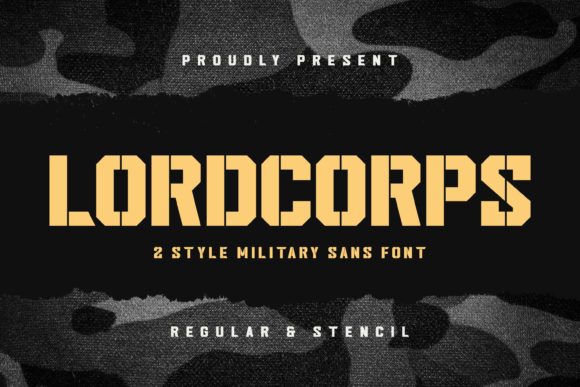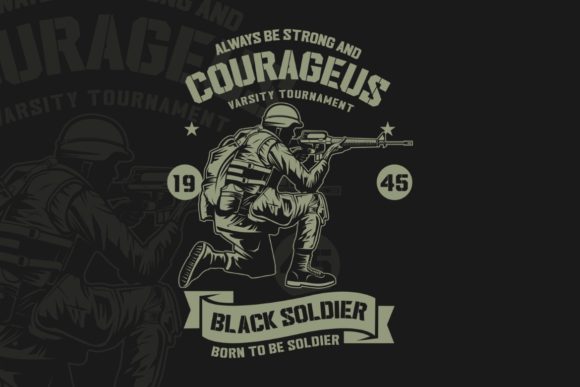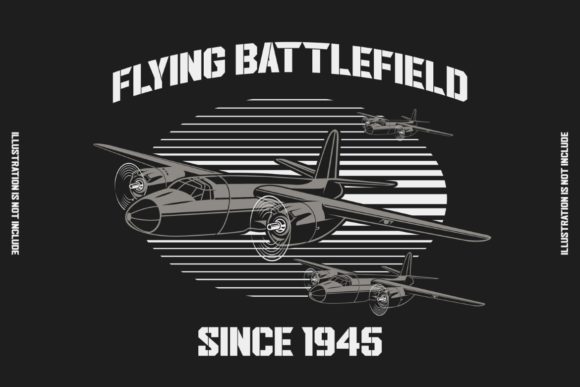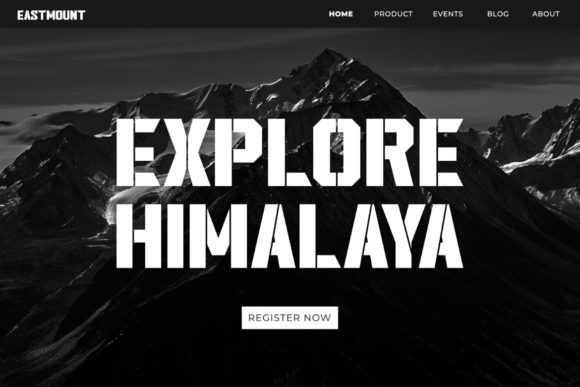
Lordcorps Font
About the Lordcorps Font
Meet Lordcorps Font, a stunning font that brings a touch of elegance and professionalism to any design. Lordcorps is a simple and casual display font with a military feel. With its neat and beautiful arrangement of letters, this typeface will look outstanding in both formal and non-formal designs.
Lordcorps excels as a display font for headlines, logos, and short, impactful text in branding projects. Its military-inspired aesthetic works well for apparel, outdoor gear, or projects with a strong, authoritative feel. Avoid using it for body copy or long paragraphs; its bold nature compromises readability in extended text. Similarly, it’s not suitable for user interfaces (UI) where legibility is paramount.
Pairing Lordcorps effectively requires considering its assertive personality. A clean, geometric sans-serif like Montserrat or a neutral serif such as Playfair Display provides a sophisticated contrast. For a more rugged look, consider pairing it with a rough-hewn, slightly distressed serif. Avoid pairing it with overly decorative or playful scripts which would clash with its military-inspired structure.
The font’s overall personality is strong, authoritative, and reliable, yet approachable. It’s ideal for brands aiming for a blend of traditional strength and modern accessibility.